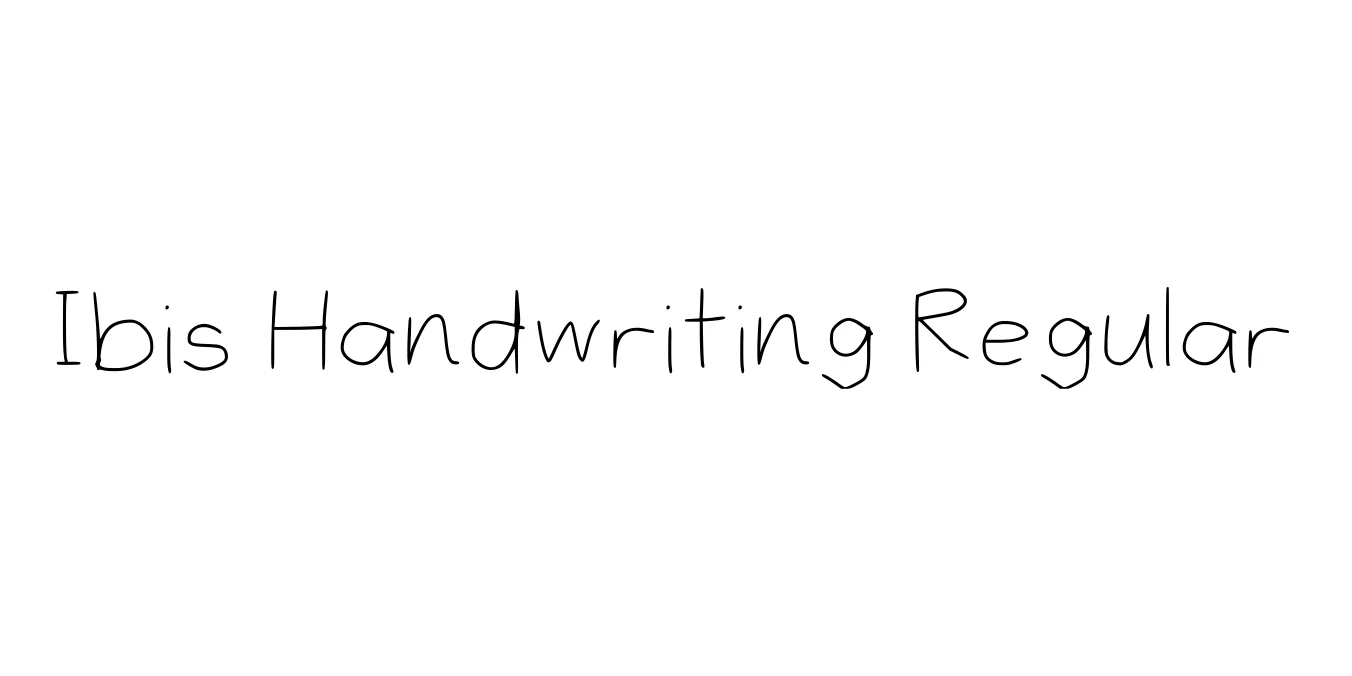
Ibis Handwriting Regular
Designed by Accor Creative Group
| Category | Handwritten Script |
| Designer | Accor Creative Group |
Ibis Handwriting Regular was originally developed as a proprietary typeface to support the visual identity of contemporary hospitality environments, aiming to bridge the gap between corporate efficiency and artisanal warmth. Its history is rooted in the move toward 'human-centric' branding, where handwritten elements are used to evoke a sense of personalized service and authentic communication in a commercial context.
Technically, the font features a medium-high x-height that ensures exceptional legibility across digital interfaces, distinguishing it from more chaotic script styles. The letterforms are characterized by rounded terminals and a uniform stroke width that mimics the consistent flow of a fine-liner pen. The lack of aggressive ligatures allows for a rhythmic, predictable spacing, making it an excellent choice for instructional text or editorial call-outs where clarity is paramount despite the informal aesthetic.
Ibis Handwriting Regular Best Uses
Adds a human touch to corporate websites and apps.
Works beautifully for invitations and thank-you notes.
Ideal for coffee shops and modern bistros.